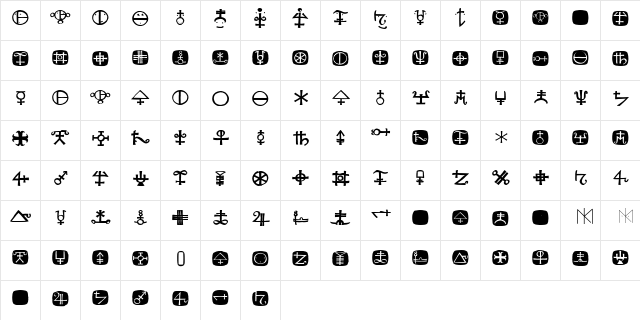
SacredOldSymbols Regular
Design Context for SacredOldSymbols Typeface
SacredOldSymbols is a composed and adaptable typeface that performs quietly and consistently across a wide range of design contexts.